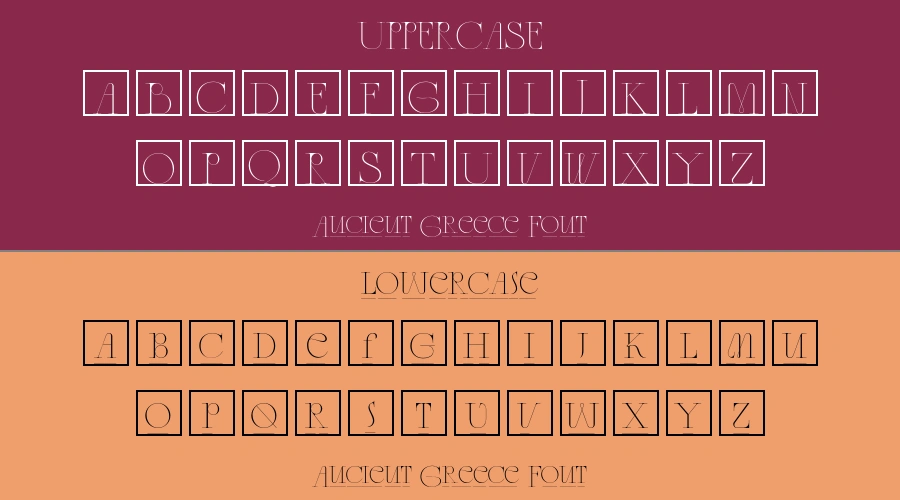
About Ancient Greece Font
Ancient Greece Font represents a sophisticated approach to type design, balancing elegant curves with professional finish. Perfect for environmental graphics, this font family showcases impressive versatility and adaptability throughout its character set. Designers appreciate its versatility and reliability.
Designers will appreciate nuanced touches including bold expressions and tabular figures, adding sophistication to any project. These features become apparent in colophons, where body text reading matters most. The careful treatment of crossbar height and historical reference ensures optimal performance.